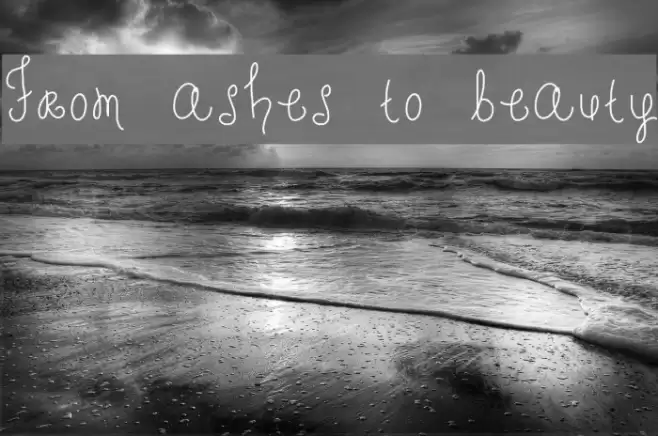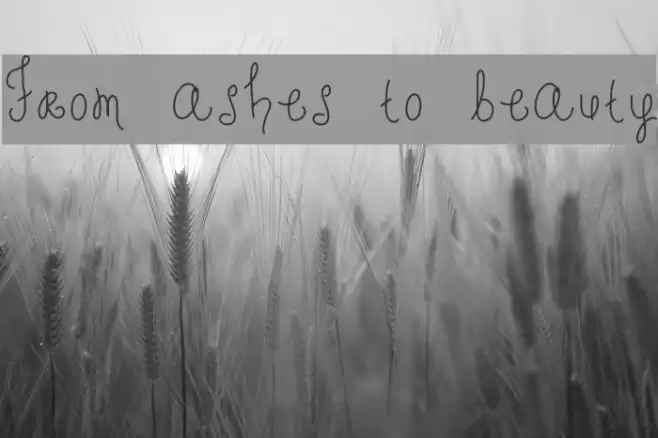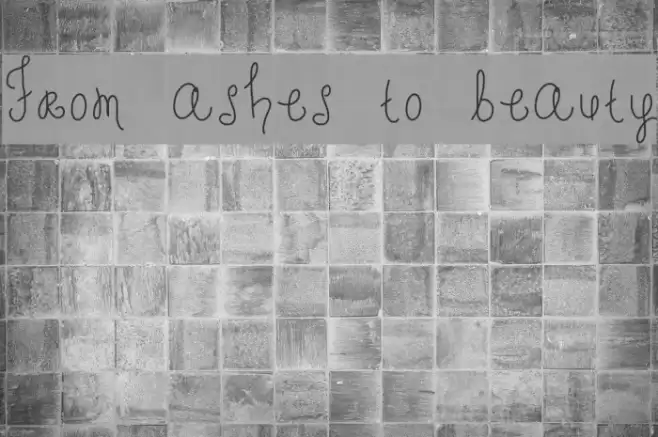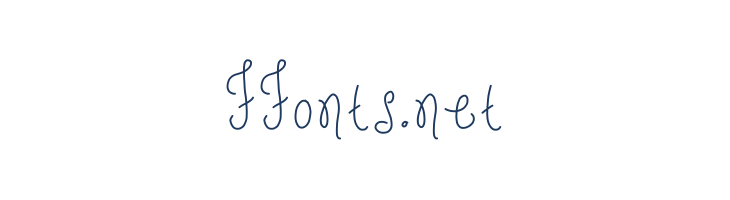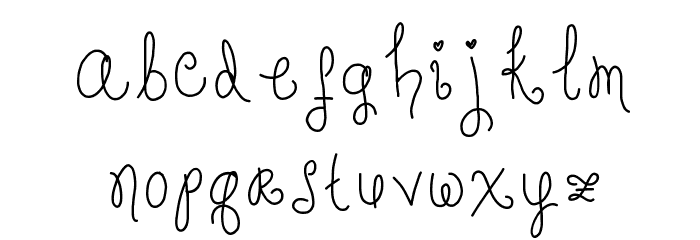
From ashes to beauty Font
From ashes to beauty Description
This font features an elegant and whimsical script style with a playful, hand-drawn appearance. The letters are characterized by their looping, flowing lines and unique flourishes, giving each character a distinct personality. The uppercase letters are particularly ornate, with exaggerated curves and swirls, while the lowercase letters maintain a more consistent, yet still decorative, style. Numbers and special characters follow the same playful design, ensuring a cohesive look across all text. This font's artistic flair makes it ideal for creative projects that require a touch of elegance and individuality.
A whimsical, hand-drawn script font with elegant loops and flourishes from Curly fonts.
- Proposed Projects: Ideal for wedding invitations, greeting cards, branding, and artistic projects requiring a personal touch.
- Use Case: Logos, Invitations, Artistic projects